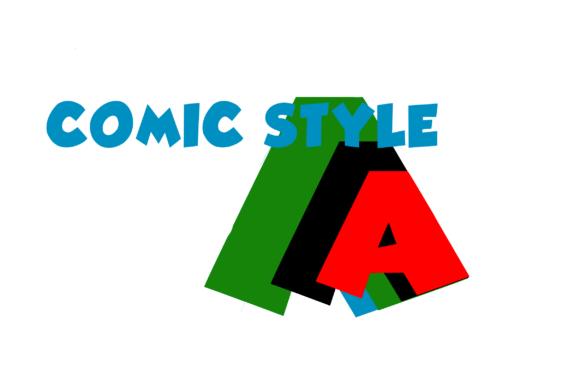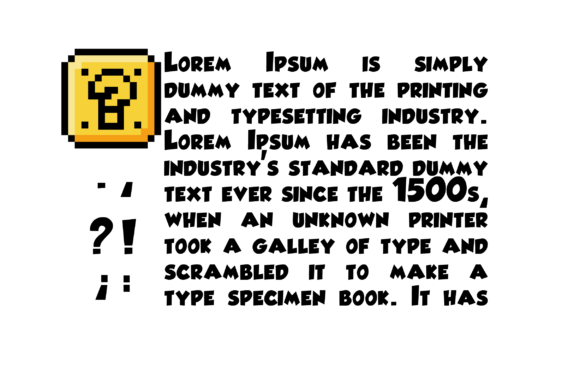
Introducing Comic Style Font: The Fun and Cool Display Font You Need!
Are you tired of using the same old fonts in your design projects? Do you want to add a touch of fun and playfulness to your creations? Look no further than Comic Style Font! This amazing display font is perfect for designers and crafters who want to make a statement and add some personality to their work.
What is Comic Style Font?
Comic Style Font is a unique and eye-catching display font that is inspired by the classic comic books of the past. With its bold lines, bright colors, and fun lettering, this font is sure to grab attention and bring a smile to people’s faces. Whether you’re working on a graphic design project, a crafting project, or just want to add some personality to your digital creations, Comic Style Font is the perfect choice.
Key Features of Comic Style Font
- Fun and playful design: Comic Style Font is designed to be fun and playful, making it perfect for projects that require a lighthearted touch.
- Bold and eye-catching: With its bold lines and bright colors, this font is sure to grab attention and make your projects stand out.
- Easy to read: Despite its playful design, Comic Style Font is easy to read, making it perfect for use in a variety of projects, from posters and flyers to digital graphics and crafts.
- Versatile: Comic Style Font can be used in a wide range of projects, from graphic design and crafting to scrapbooking and journaling.
Why Use Comic Style Font?
So why should you use Comic Style Font in your projects? Here are just a few reasons:
- Add personality to your projects: Comic Style Font is a great way to add some personality and whimsy to your projects, making them more engaging and fun.
- Stand out from the crowd: With its bold and eye-catching design, Comic Style Font is sure to make your projects stand out from the crowd.
- Perfect for kids’ projects: Comic Style Font is perfect for projects aimed at kids, such as children’s party invitations, educational materials, and kids’ crafts.
- Great for crafters and scrapbookers: Comic Style Font is a great addition to any crafter’s or scrapbooker’s toolkit, adding a fun and playful touch to journal pages, cards, and other crafts.
How to Use Comic Style Font
Using Comic Style Font is easy! Here are a few tips to get you started:
- Use it as a display font: Comic Style Font is perfect for use as a display font, making it great for headlines, titles, and other prominent text.
- Pair it with other fonts: Comic Style Font pairs well with a variety of other fonts, making it easy to create fun and interesting text combinations.
- Experiment with colors: Comic Style Font looks great in a variety of colors, so don’t be afraid to experiment and find the perfect color for your project.
Comic Style Font is a fun and cool display font that is perfect for designers and crafters who want to add a touch of personality to their projects. With its bold lines, bright colors, and playful design, this font is sure to grab attention and bring a smile to people’s faces. So why not give Comic Style Font a try and see the amazing results for yourself?
Comic Style is a fun and cool display font. Add it confidently to your projects and you will love the results!